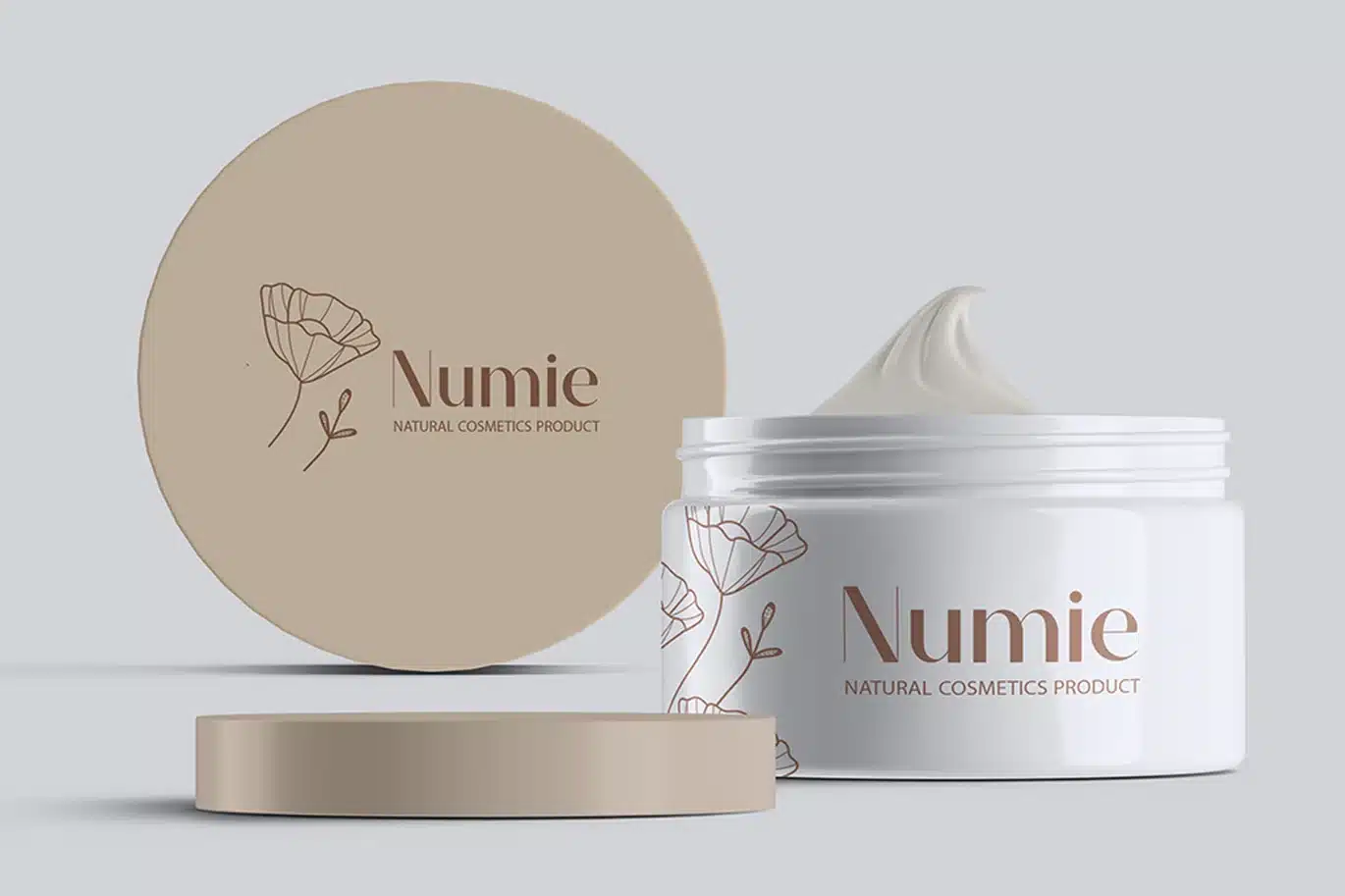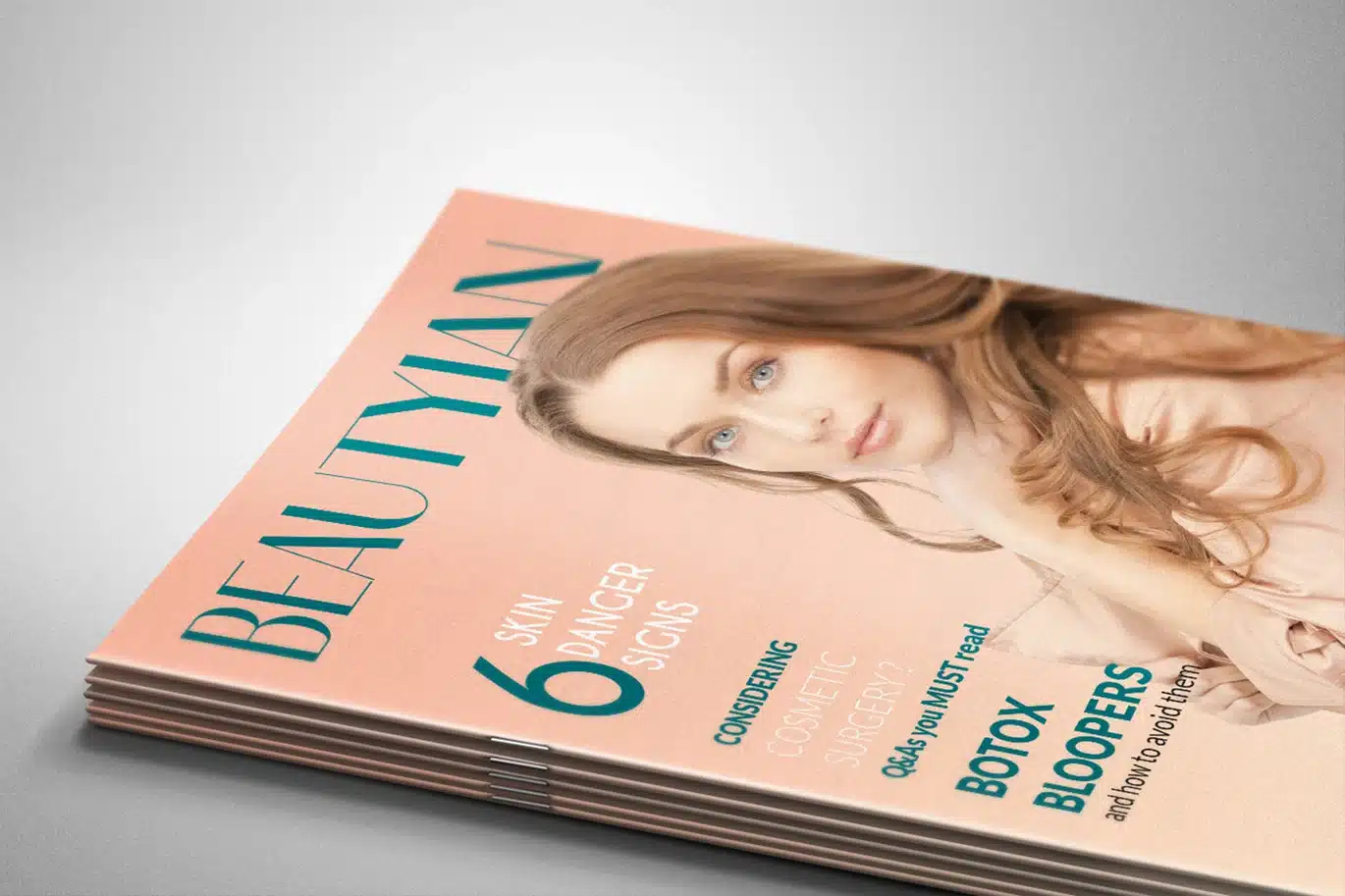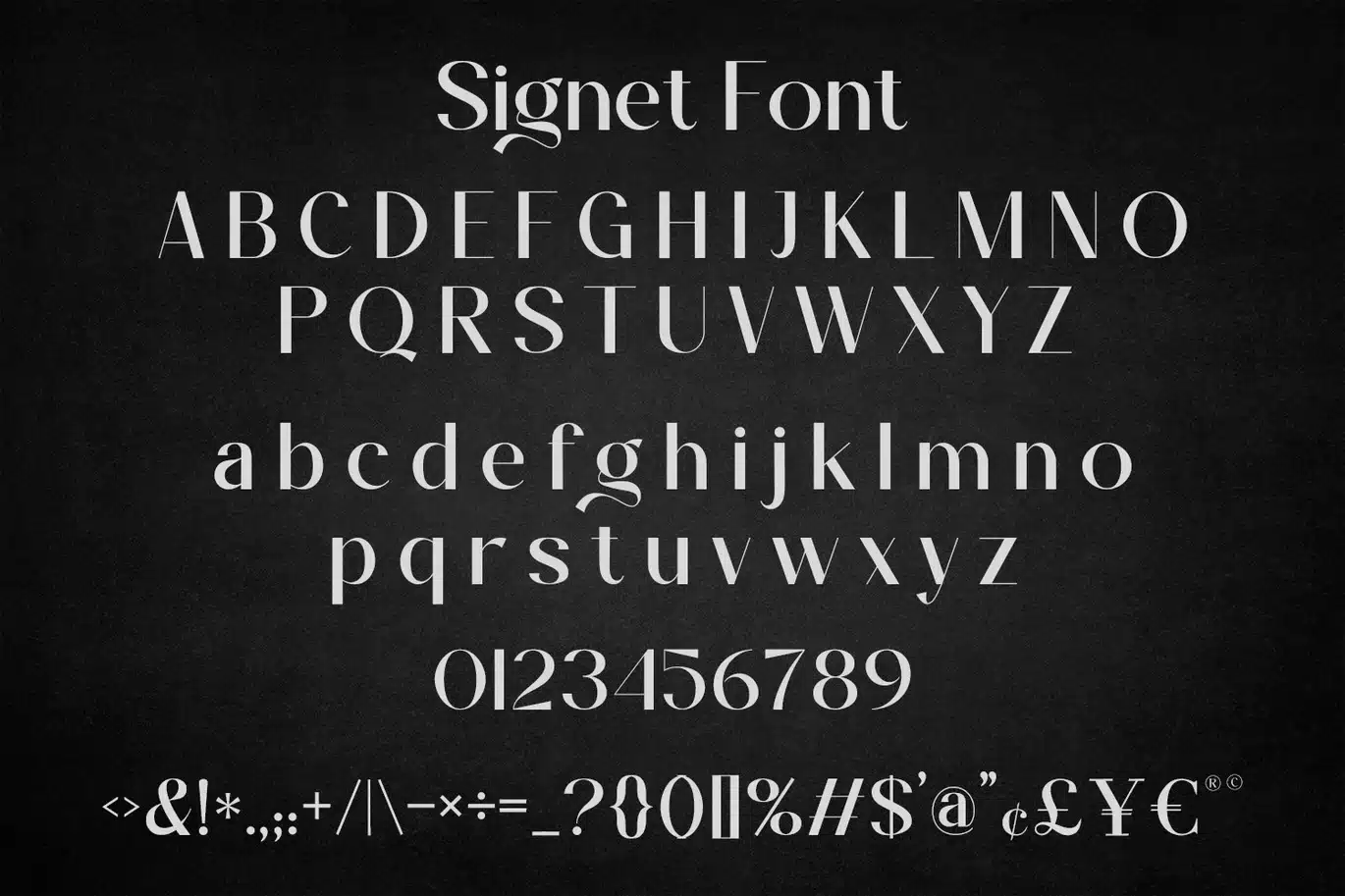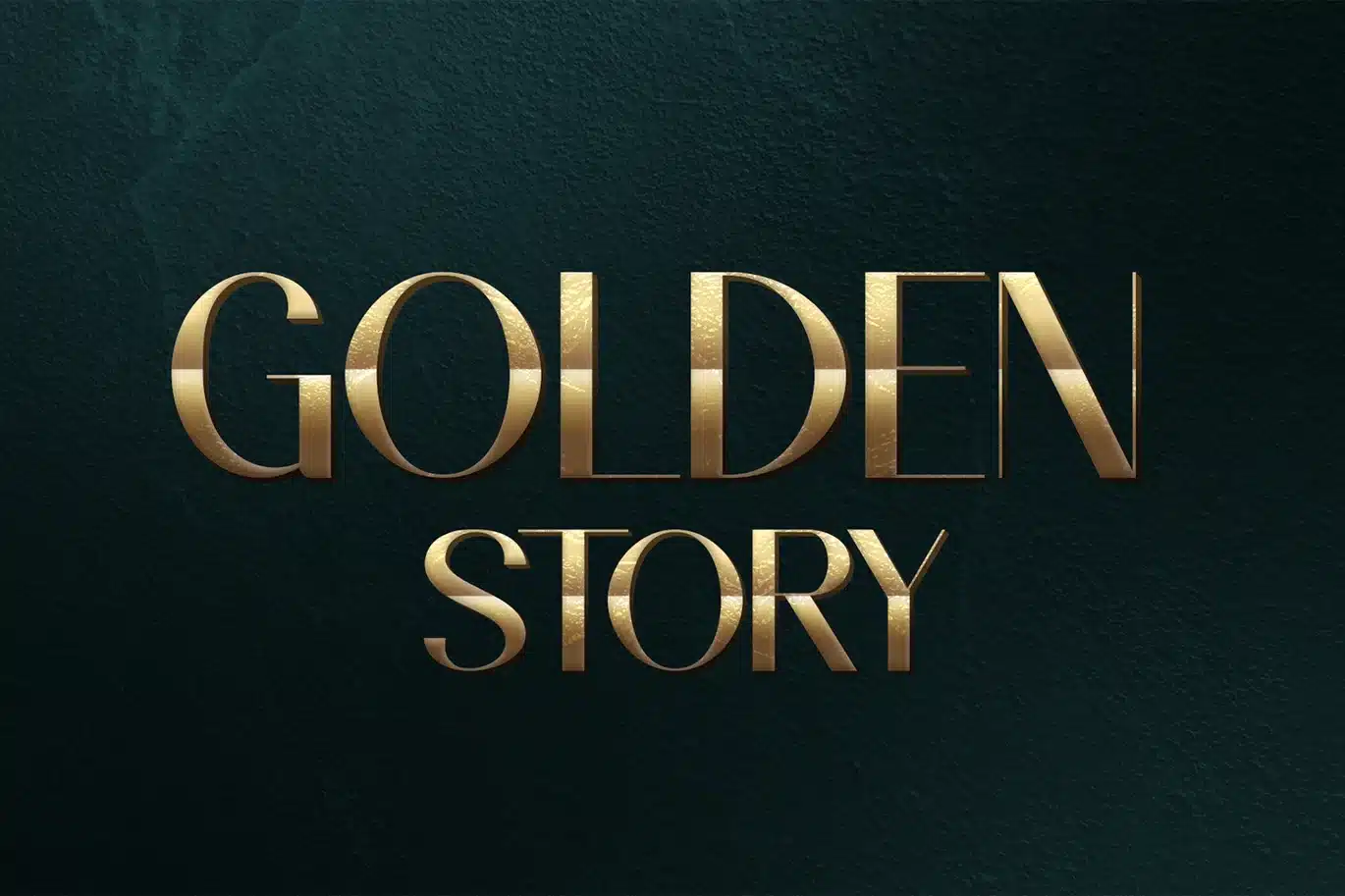
Signet Sans Serif Font
Signet – A Premium High-Contrast Sans Serif
Signet is a striking, high-contrast sans serif typeface designed to bring an essence of true luxury and timeless elegance to your creative projects. Characterized by its sharp, flared terminals, refined curves, and a beautiful balance between thick and thin strokes, this font commands attention while maintaining exceptional readability.
Blending classic typography with a modern, sophisticated edge, Signet is the ultimate tool for designers looking to elevate their work. It provides a polished and highly professional aesthetic that instantly adds value to any design.
- Unique letterforms